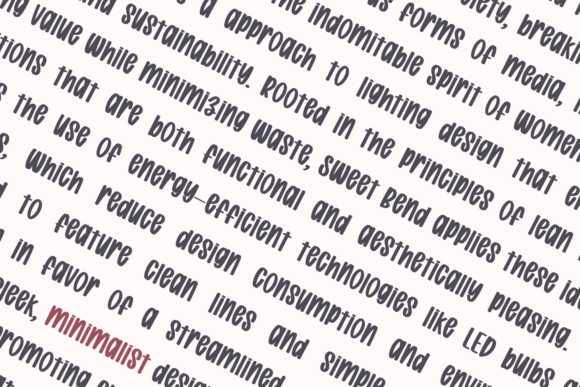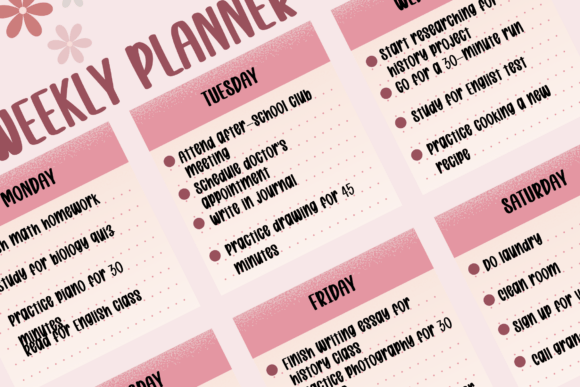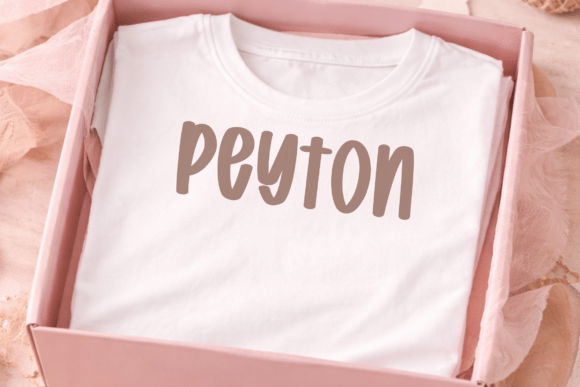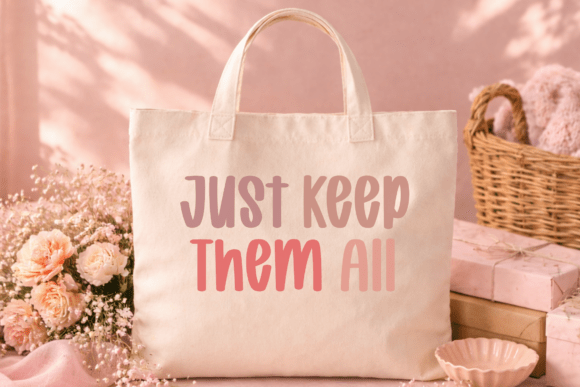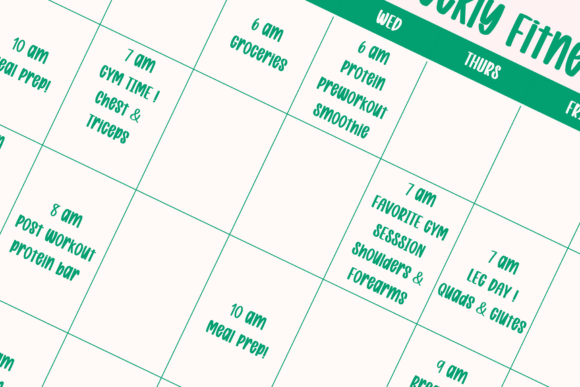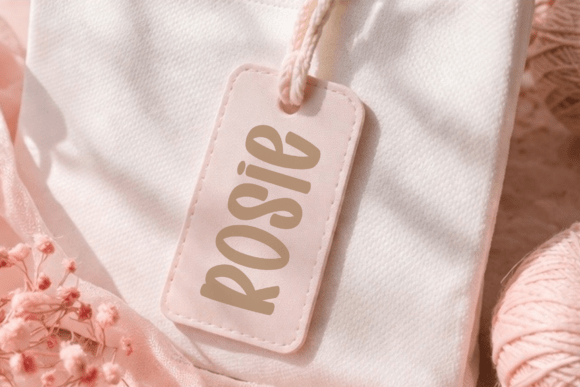
Introduction to Prep Queen Font
Have you ever found yourself scrolling through your social media feed, feeling inspired by a beautifully designed post or brand identity, and wondering, “How did they do that?” For designers and creatives, the quest for the perfect font can be a never-ending journey. But what if you stumbled upon a font that not only elevates your design game but also offers a unique, preppy vibe that sets you apart from the crowd?
Enter the Prep Queen Font, a stylish handwritten font that brings a touch of modern sophistication to your creative projects. With its smooth curves and structured letterforms, this font delivers a clean and confident look that’s perfect for branding, logo design, Cricut projects, and more.
Key Features of Prep Queen Font
- Unique Script Font: Prep Queen Font is a beautiful, elegant script font designed for creative projects, perfect for adding a touch of sophistication and style.
- High-Quality Design Resource: This font is a high-quality design resource that can be used for a variety of purposes, from wedding invitations to social media graphics.
- Perfect for Creative Projects: Prep Queen Font is designed specifically for creative projects, making it an ideal choice for designers and artists working on a variety of projects, from branding to editorial design.
Honest Review: Prep Queen Font
I recently had the chance to dive into the world of the Prep Queen Font, and I must say it’s been an interesting experience. As a designer, I’m always on the lookout for high-quality design resources to elevate my creative projects.
- The Prep Queen Font has a clean, minimalist aesthetic that’s perfect for modern designs.
- The font is highly customizable, allowing you to adjust the size, color, and opacity to suit your needs.
- The Prep Queen Font is limited in its versatility, making it less suitable for bold or experimental designs.
Overall, the Prep Queen Font is a solid addition to any designer’s toolkit. While it may not be the most versatile font out there, its high quality and customization options make it a great choice for a wide range of creative projects.
The Prep Queen Font is a high-quality design resource that offers a unique and stylish aesthetic. With its transparent background and elegant typography, it’s perfect for creative projects that require a touch of sophistication.
For the best results, use the Prep Queen Font in conjunction with a clean and minimalist design aesthetic. This font is particularly well-suited for:
- Food and beverage branding
- Home decor and lifestyle products
Remember to experiment with different font sizes, colors, and combinations to get the most out of the Prep Queen Font.